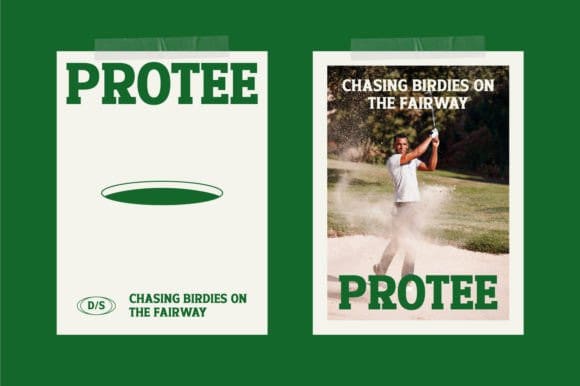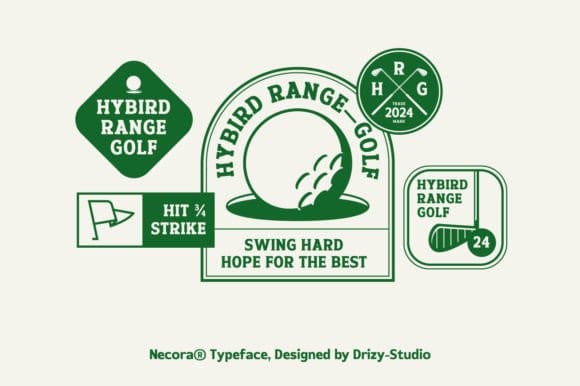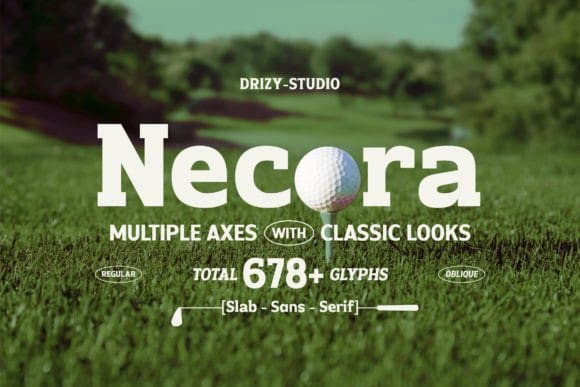
Necora Sans Font
Necora Sans Font is a font exudes timeless elegance and sporty sophistication with GOLF – ELEGANT SPORT stands out balanced blend of timeless refinement and athletic energy, making every text appear both authoritative and engaging. Designed with multiple axes, it blends classic typographic elements with modern nuances, making it ideal for projects that require a balance of tradition and contemporary style. Its sleek lines and carefully crafted curves ensure clarity and readability across various design contexts, from editorial layouts to branding and signage. Whether used in print or digital media, this font stands out with its versatility and aesthetic appeal, embodying a sense of refinement and dynamic energy.